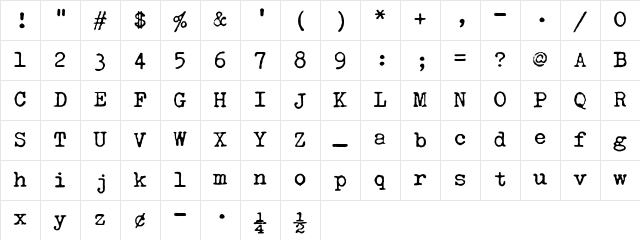
Olivetti Valentine Regular Free Font
Olivetti Valentine Regular
Foundry: Aleksandar Stevanov
Designer: Aleksandar Stevanov
Design Context for Olivetti Valentine
Olivetti Valentine is a composed and adaptable typeface that performs quietly and consistently across a wide range of design contexts.
Who designed the Olivetti Valentine Regular font?